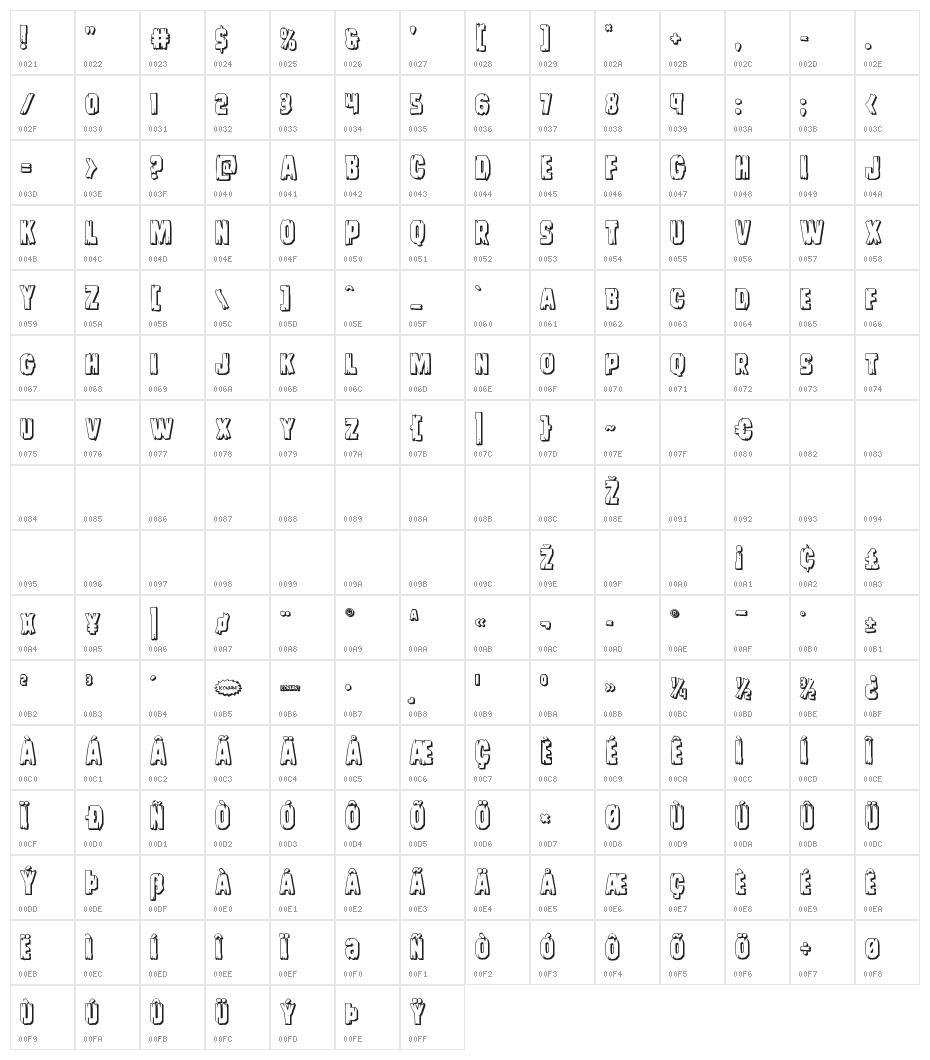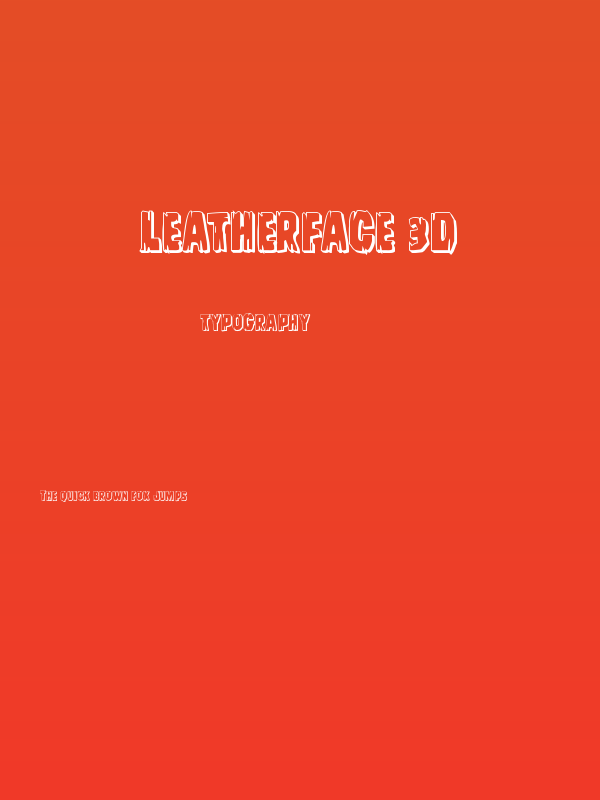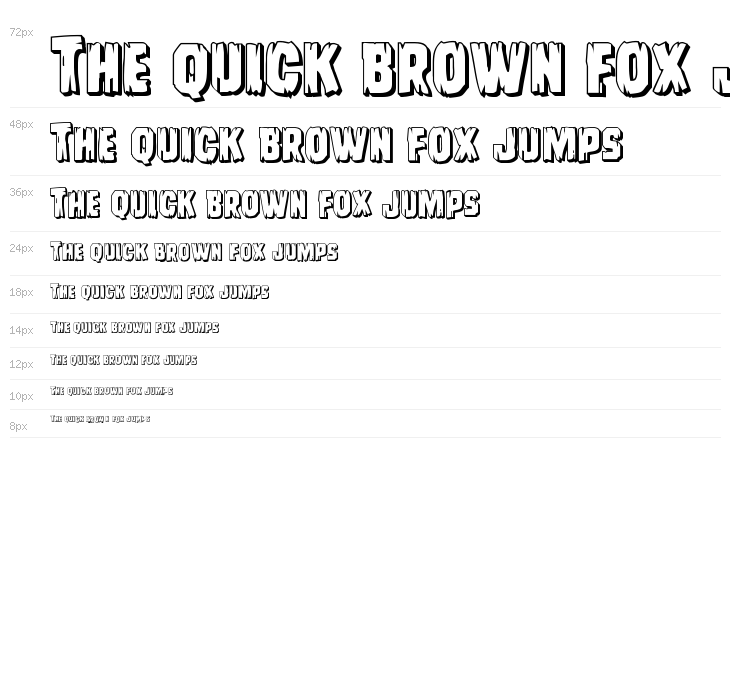
Leatherface 3D Font
Leatherface 3D Description
This font features a bold, rugged design with a three-dimensional effect that gives it a striking and impactful appearance. The characters have a distressed, jagged edge that adds a sense of roughness and texture, making it ideal for projects that require a bold statement. The uppercase and lowercase letters maintain a consistent style, with each character appearing as if it has been carved or chipped away, enhancing the font's unique aesthetic. The numerals and special characters follow the same design principles, ensuring a cohesive look across all text elements.
| Proposed Projects | Ideal for horror-themed designs, movie posters, video game titles, and any project needing a bold, edgy look. |